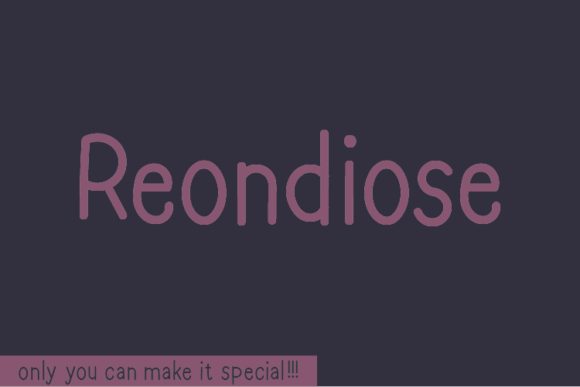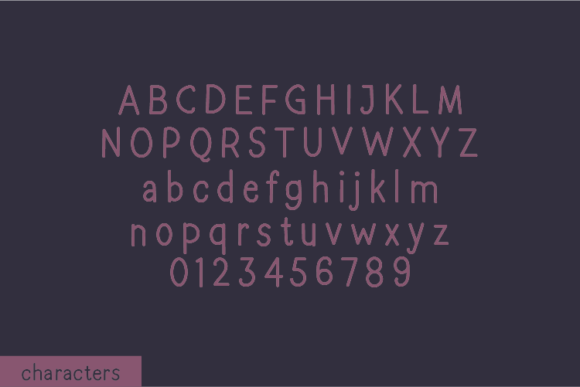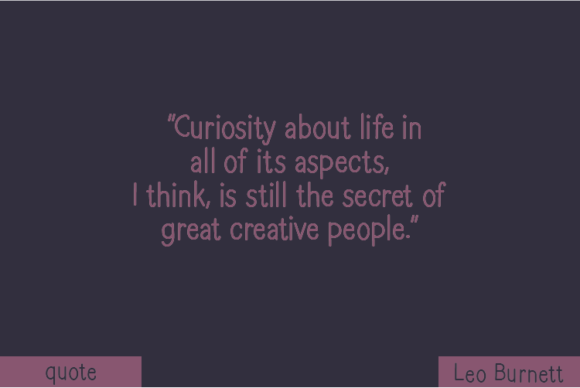
About Reondiose Font
Reondiose Font Download introduces a natural handwritten typeface that reflects true artistic expression. Each character is drawn without altering a single node in its indentation, which gives the font an authentic and handcrafted appearance. This raw design style makes Reondiose one-of-a-kind, offering personality and uniqueness to every project.
Handcrafted Style with Versatility
Reondiose is not only natural but also versatile. Its flowing lines bring character and warmth, making it a perfect match for many design needs. You can confidently use it for:
Inspirational quotes and personal notes
Creative T-shirt designs and casual apparel
Greeting cards, journals, and stationery
Logos, branding, and product packaging
Social media graphics and blog headers
This flexibility allows Reondiose to shine in both digital and print formats.
Why Designers Love Reondiose
Designers appreciate Reondiose for its balance of authenticity and practicality. The font’s natural look makes it engaging, while its structure keeps it readable. Pair it with minimalist sans-serifs for modern branding or let it stand alone to deliver bold creative statements.